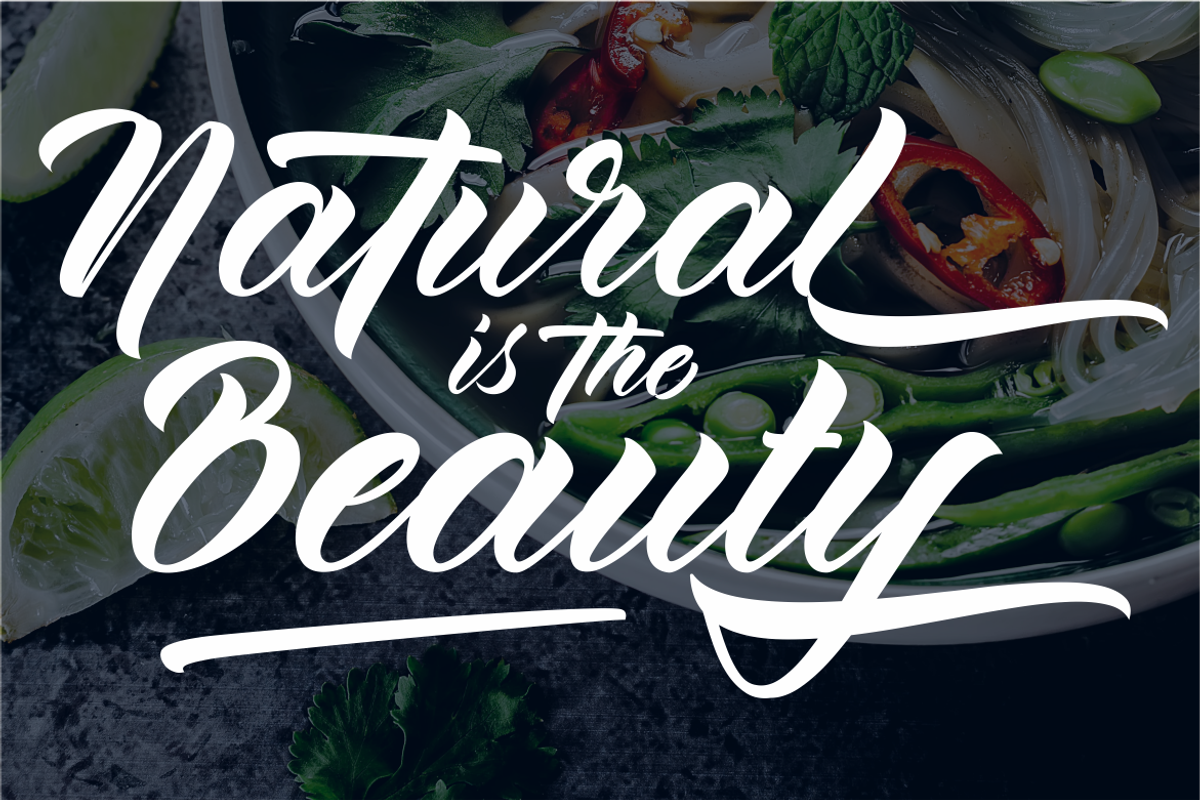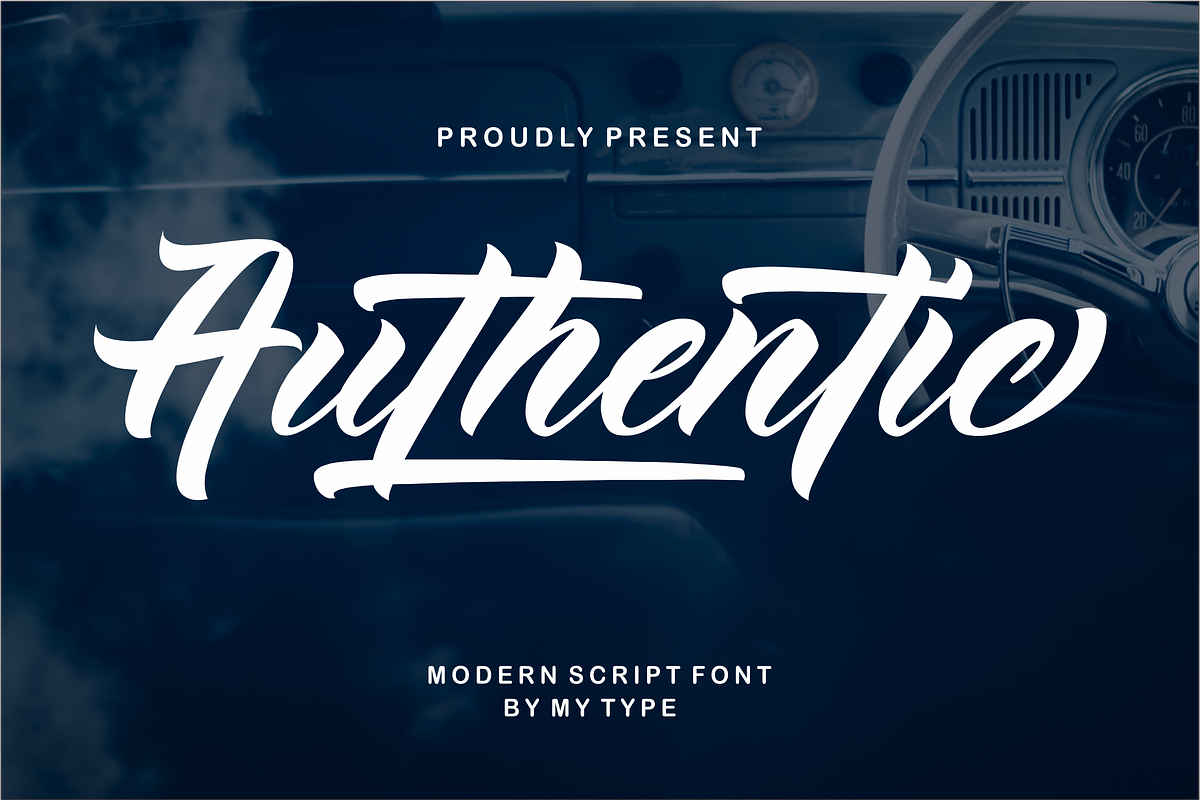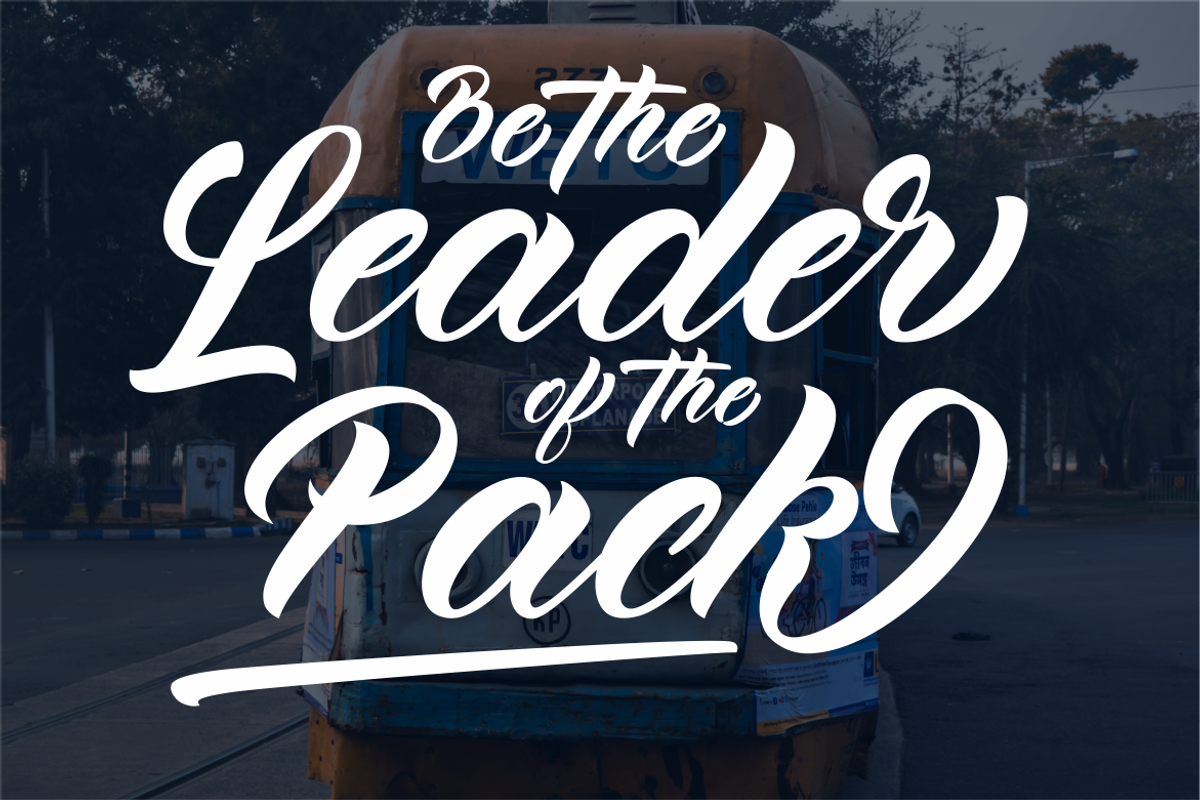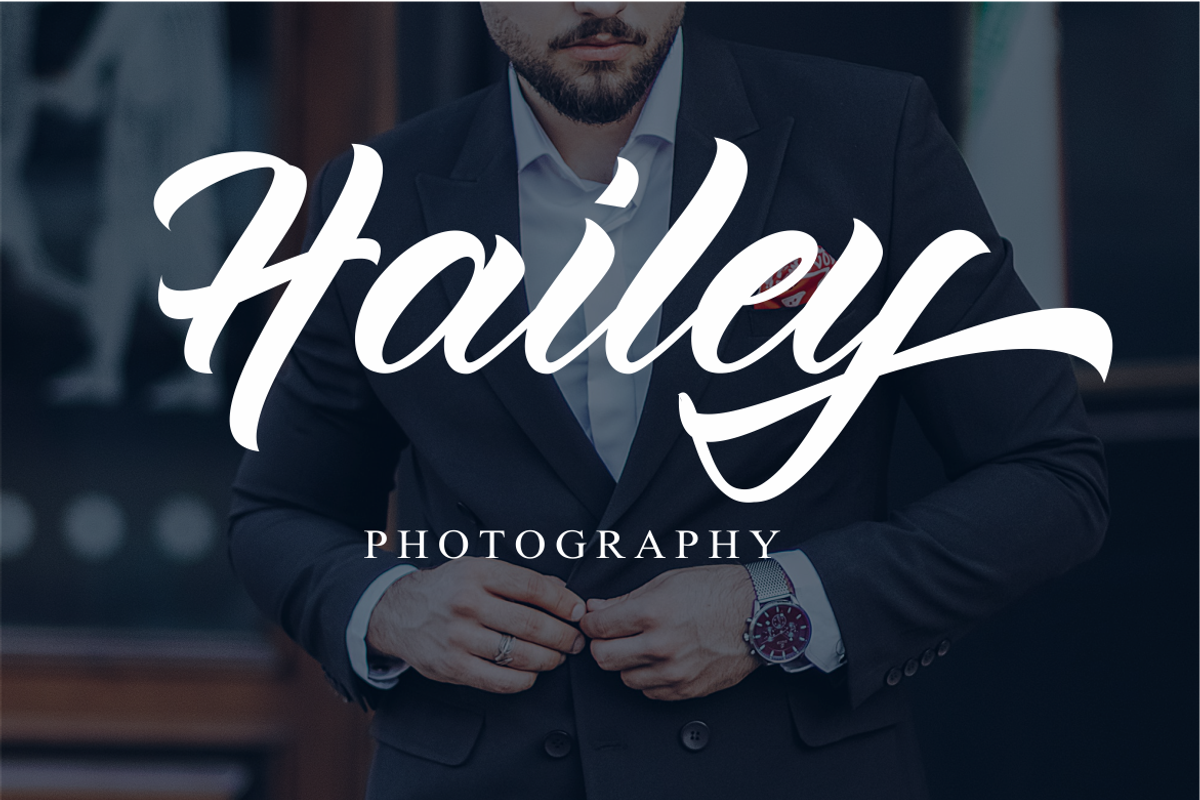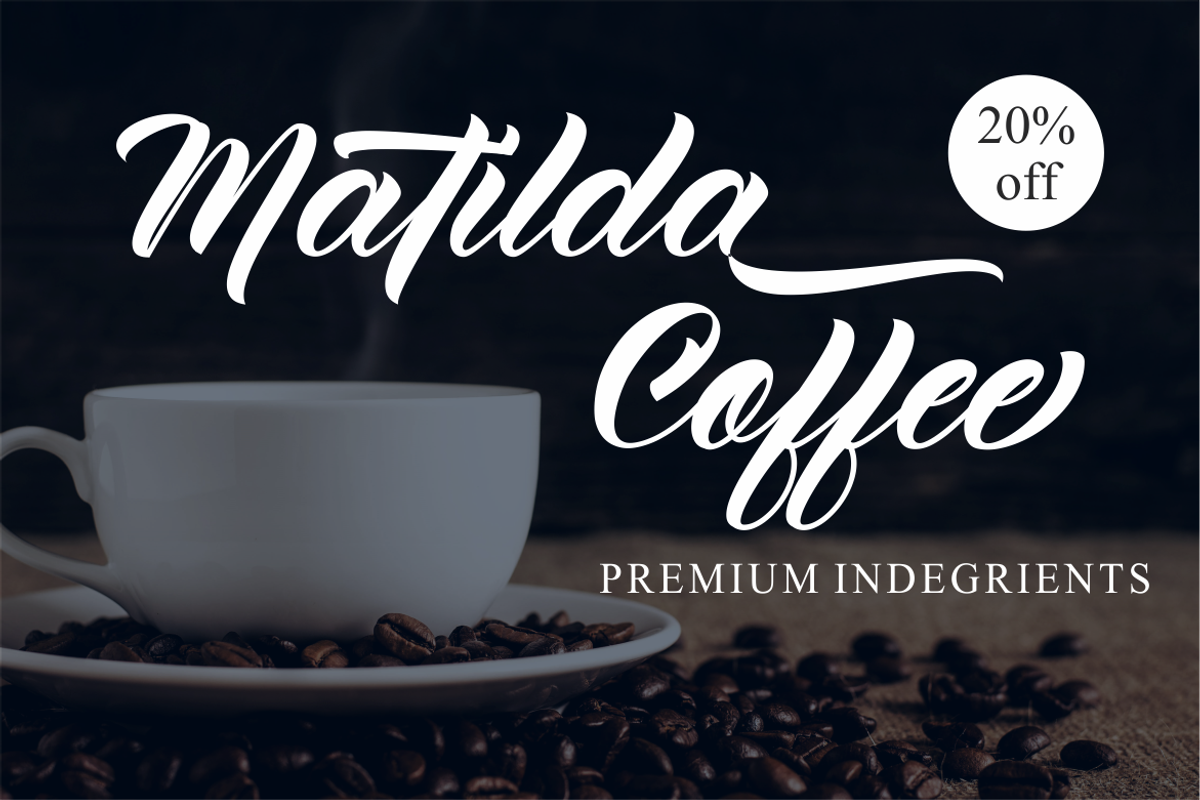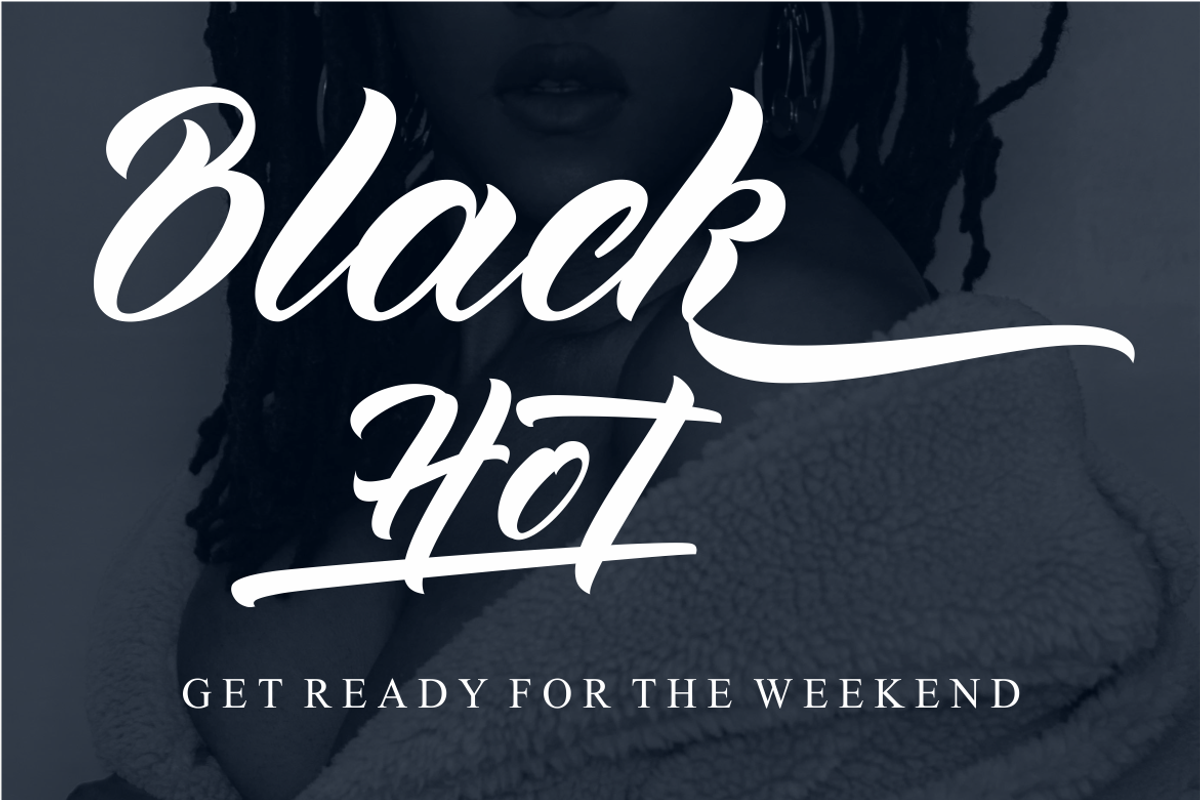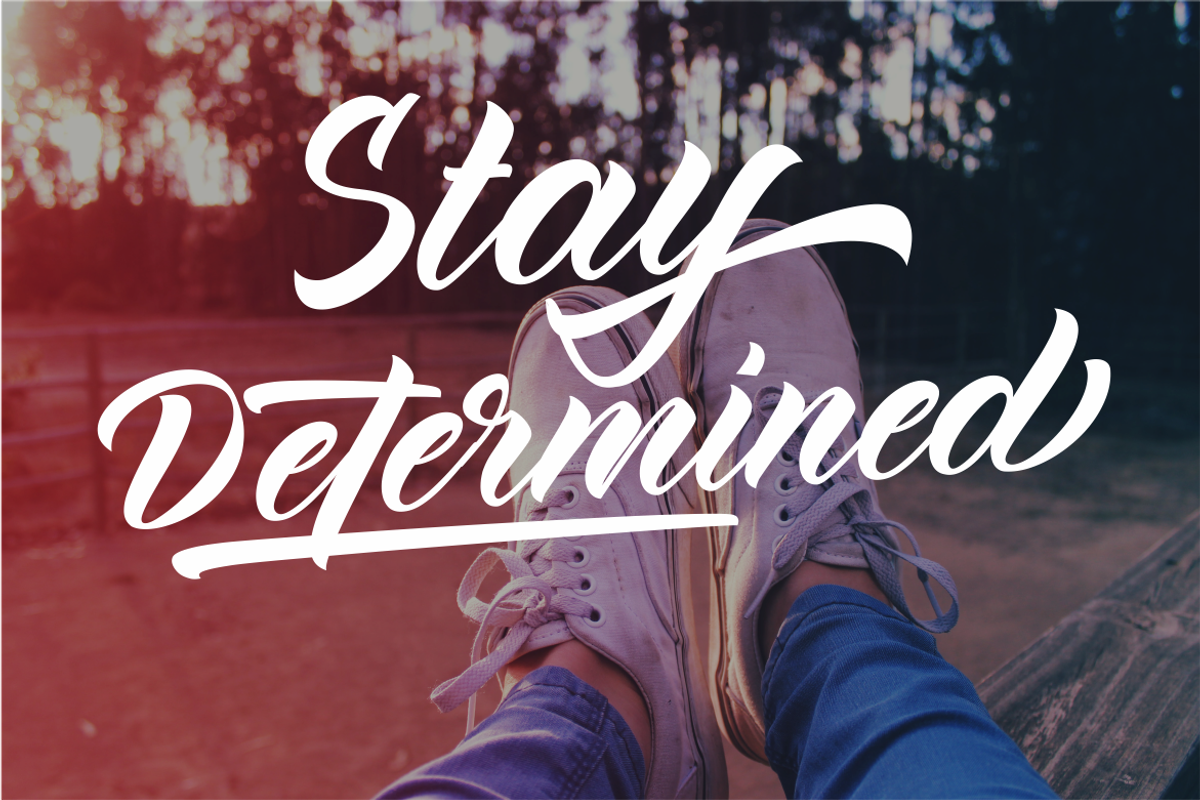
Authentic Script
Authentic is a modern script font with bold style and modern looks.
Authentic Script perfect for branding projects, a logo, badge, insignia, packaging, headline, poster, t-shirt/apparel, greeting card, and wedding invitation. headers and anything else about your imagination.
Authentic Script allows you to create custom dynamic text. you can access by turning on; Stylistic Alternates, Swash, as well as ligatures in Photoshop, Adobe Illustrator, Adobe InDesign or through a panel of glyphs such as Adobe Illustrator, Photoshop CC, Let's switch from the reguler character into character alternative to get the text with the layout of your dreams.